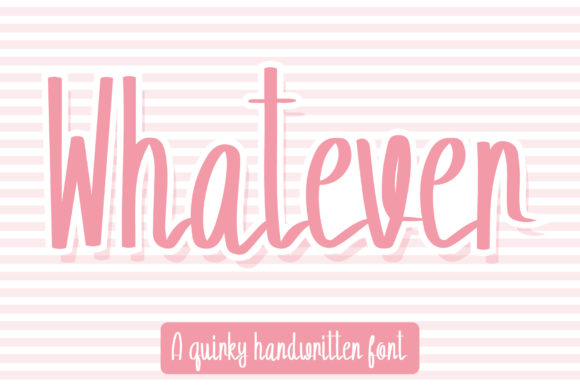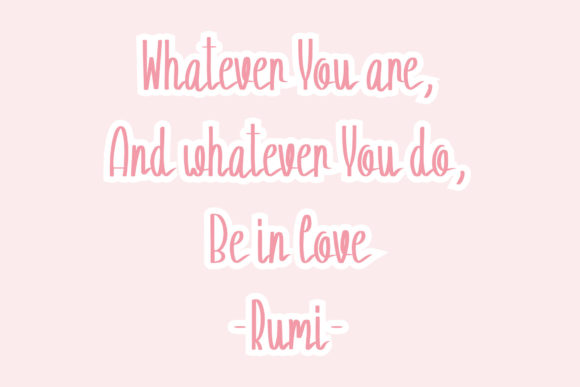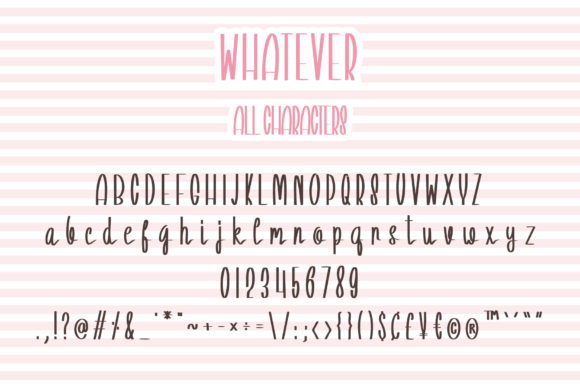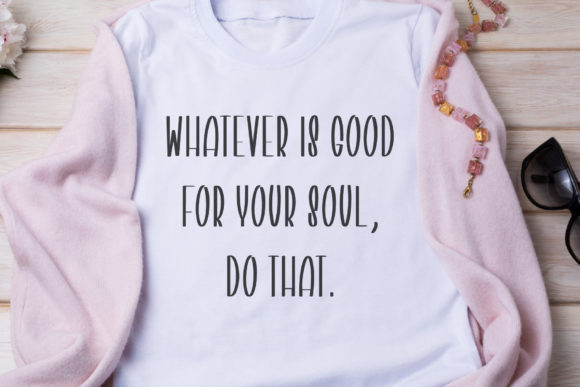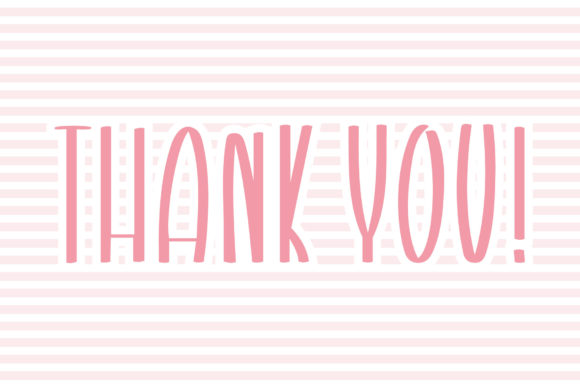
Whatever Font
About Whatever Font
Whatever is a friendly and sweet handwritten font. It can be used for various purposes such as logos, wedding invitations, headings, t-shirts, letterhead, signage, labels, news, posters, badges and so much more.